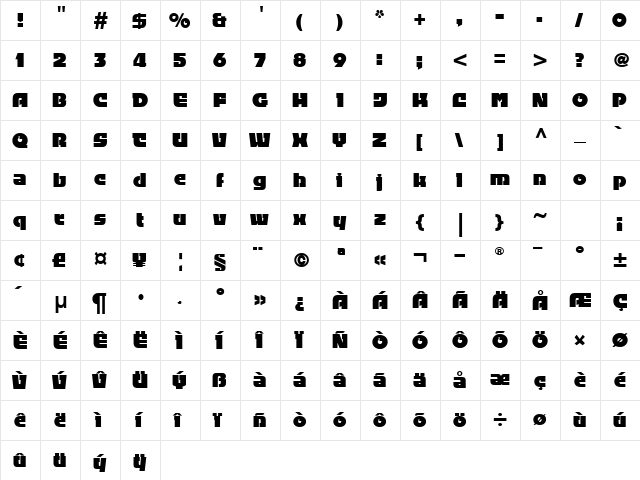
LTFehrle Display Normal Font Preview
LTFehrle Display Normal
Design Context for LTFehrle Display Typeface
LTFehrle Display is built around its visual character rather than neutral utility — its distinctive forms are designed to make an impression at display sizes.
Font Pairing: Pair with a clean neutral sans-serif for body copy to let LTFehrle Display's character lead without overwhelming the composition.
Pro Tip: Use LTFehrle Display exclusively at display sizes — it was designed to be seen, not read at length. Let a neutral companion handle body copy.